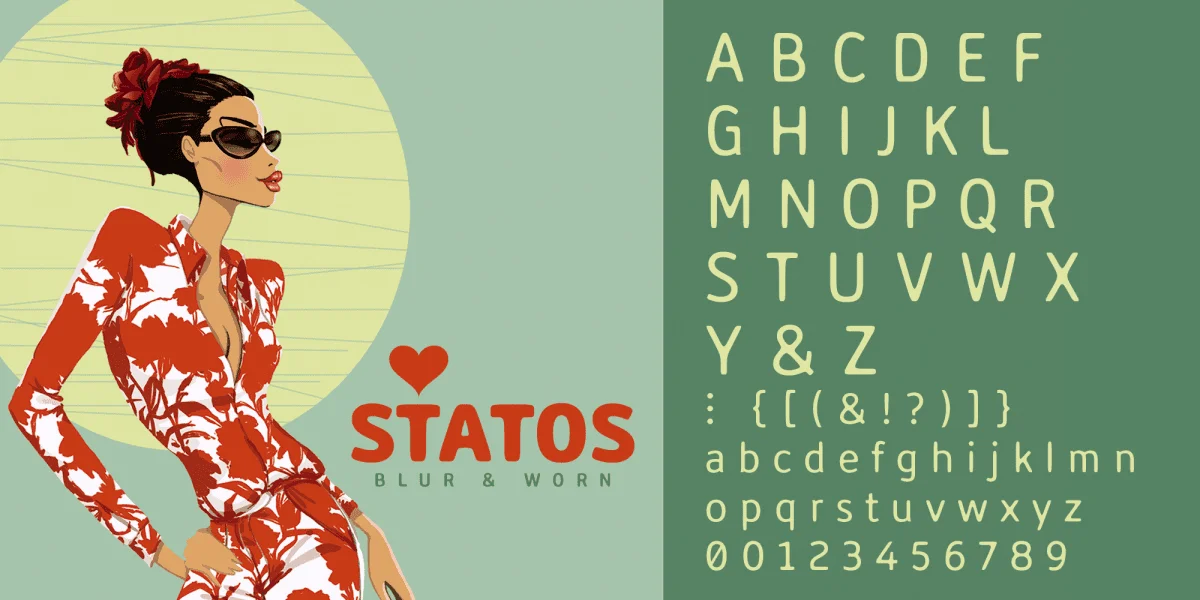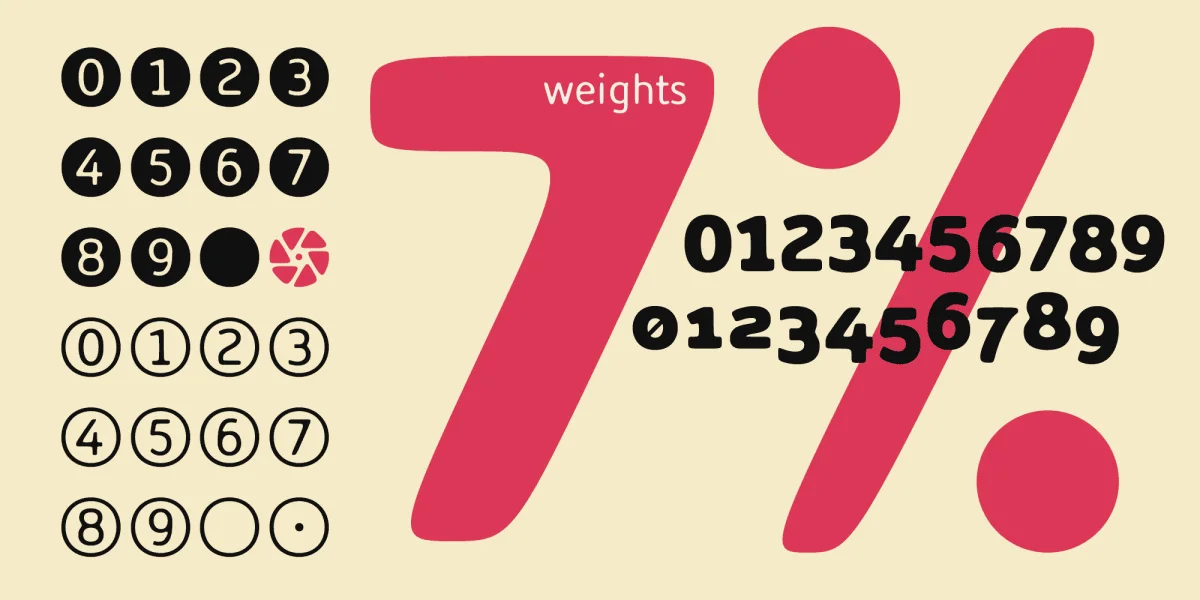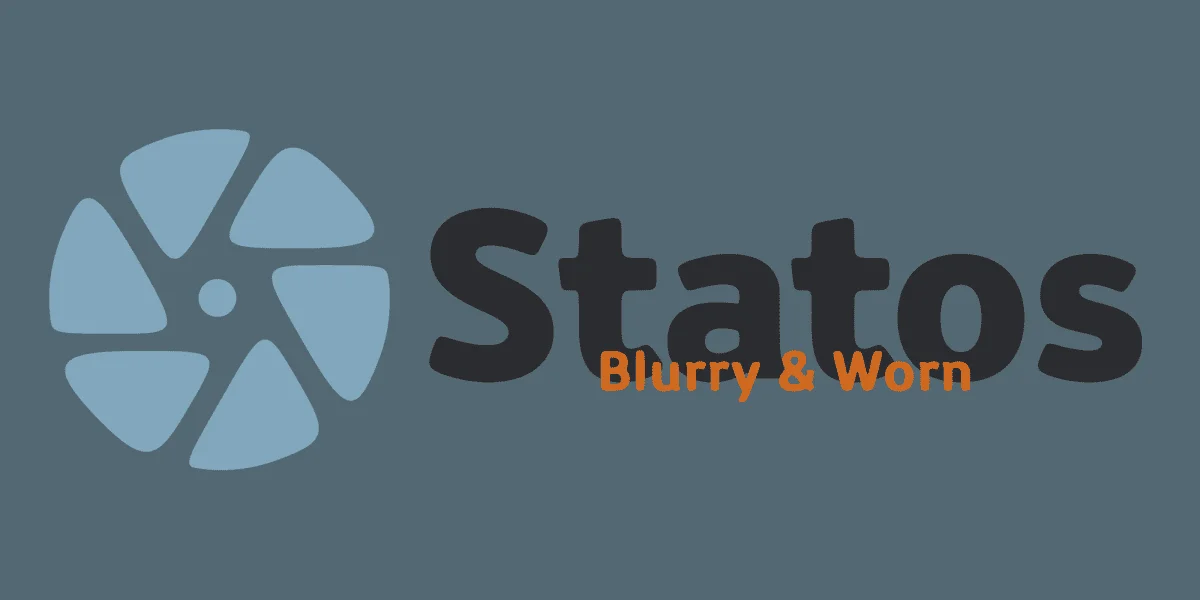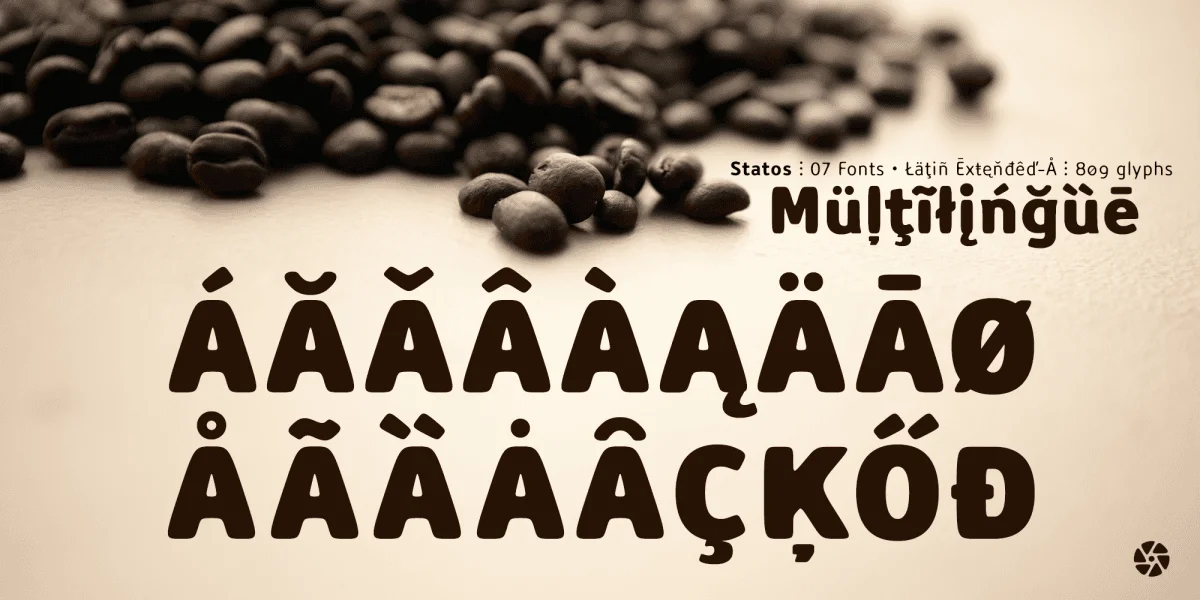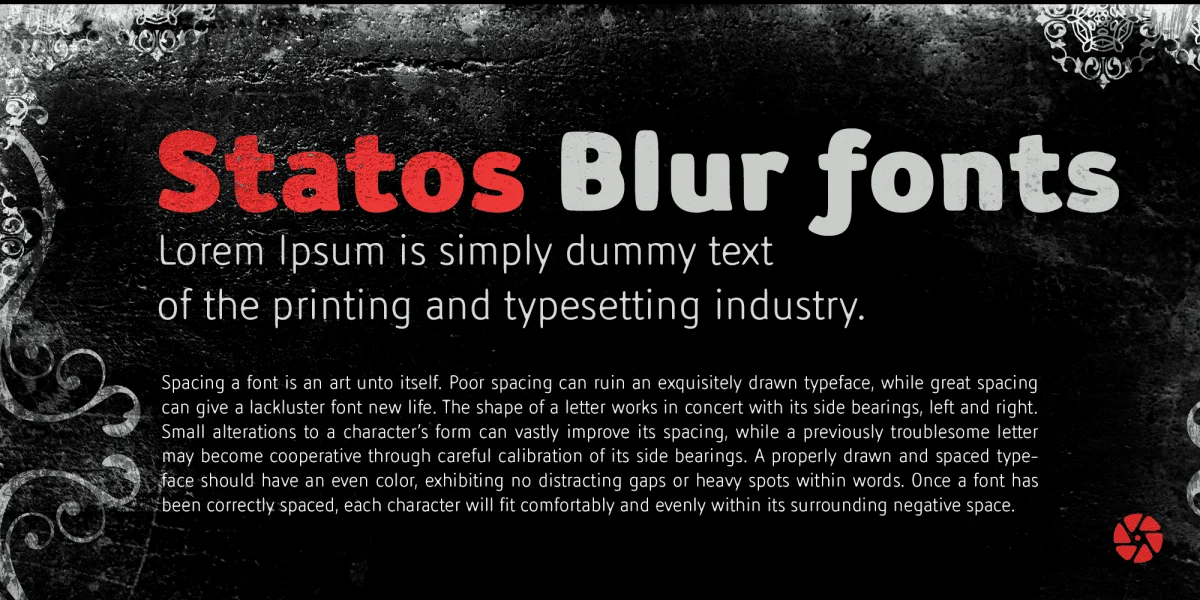
Statos is a worn, blurred sans-serif typeface, built on the conviction that imperfection is not a flaw—it's the message.
Statos questions typographic perfection. It moves away from absolute cleanliness to embrace imperfection as a visual language. And yet, it maintains exceptional legibility.
The family is structured around seven weights, seven states of controlled decay—Light, Regular, Medium, Semi Bold, Bold, Extra Bold, and Black—that maintain this eroded identity without sacrificing hierarchy or performance.
Statos includes six complete sets of numbers so that each digit tells its own story. Three sets of uppercase letters that converse with each other. Five sets of lowercase letters because versatility doesn't compromise on monotony.
Two sets of arrows to point out directions in this visual chaos we call design; and 242 alternative characters and symbols that expand the visual language far beyond the basics.